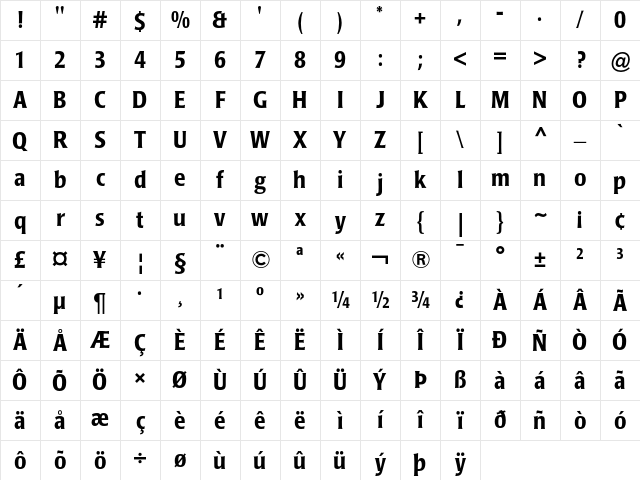
Poppl-Laudatio Medium Condensed
Style: Medium Condensed
Complete Poppl-Laudatio Medium Condensed glyph index. Displaying only characters natively supported by Poppl-Laudatio Medium Condensed font.
Design Context for Poppl-Laudatio
Poppl-Laudatio is a composed and adaptable typeface that performs quietly and consistently across a wide range of design contexts. Its narrow stance lets it pack a punch even in space-constrained designs.